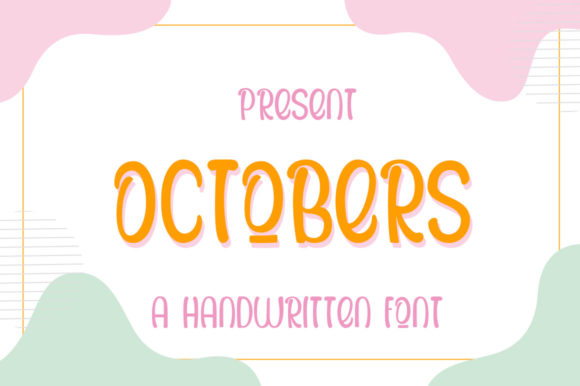
Introducing Octobers Font, where cuteness and quirkiness dance together in perfect harmony. This adorable display font will inject an effervescent burst of joy into your designs, leaving an unforgettable impression.
With Octobers Font, you have the secret weapon to unlock the full potential of your packaging designs. Its charming curves and playful angles will make your products leap off the shelves, begging for attention. Its versatility extends beyond packaging, gracing your invitations, posters, and social media posts with an enchanting touch.
Let Octobers Font ignite your creativity and unleash the boundless possibilities within your designs. From playful patterns to captivating headlines, its unique character will add an instant splash of joy to every project.
Embrace the power of Octobers Font and witness your creations transform into irresistible eye-catchers. Its playful spirit will captivate your audience, building an unbreakable connection that will leave them yearning for more.
Indulge in the whimsical world of Octobers Font and let your imagination soar. Its enchanting charm will effortlessly elevate your designs, turning them into masterpieces that will spark endless smiles.